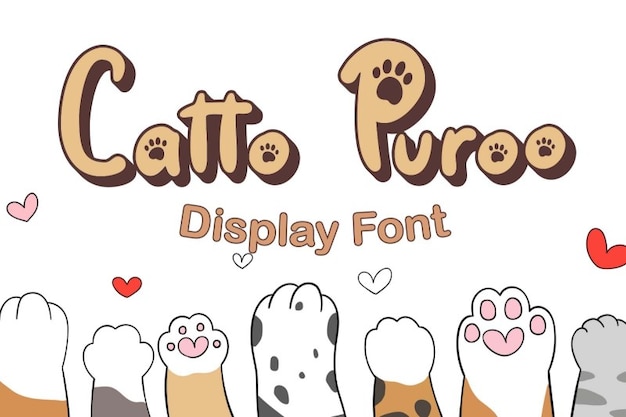
Catto Puroo Font
Attype Studio
Catto Puroo is a playful, whimsical typeface inspired by the soft charm of cats. Featuring rounded edges and paw-like accents, each letter feels as light as a feline's step. Perfect for pet-related designs or playful branding, Catto Puroo captures the fun and mischief of a curious cat with every "meow" in its curves and strokes.